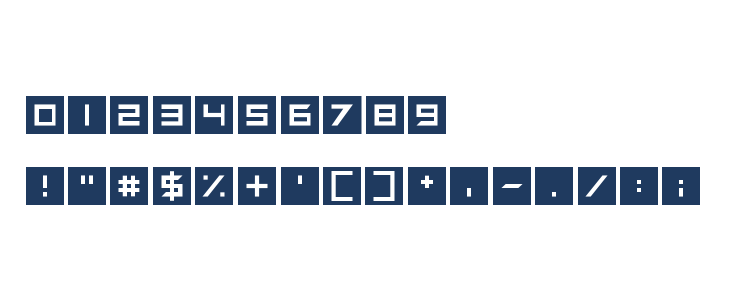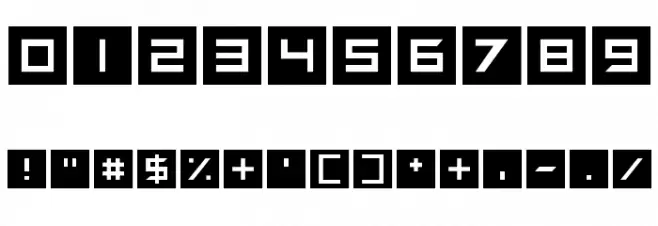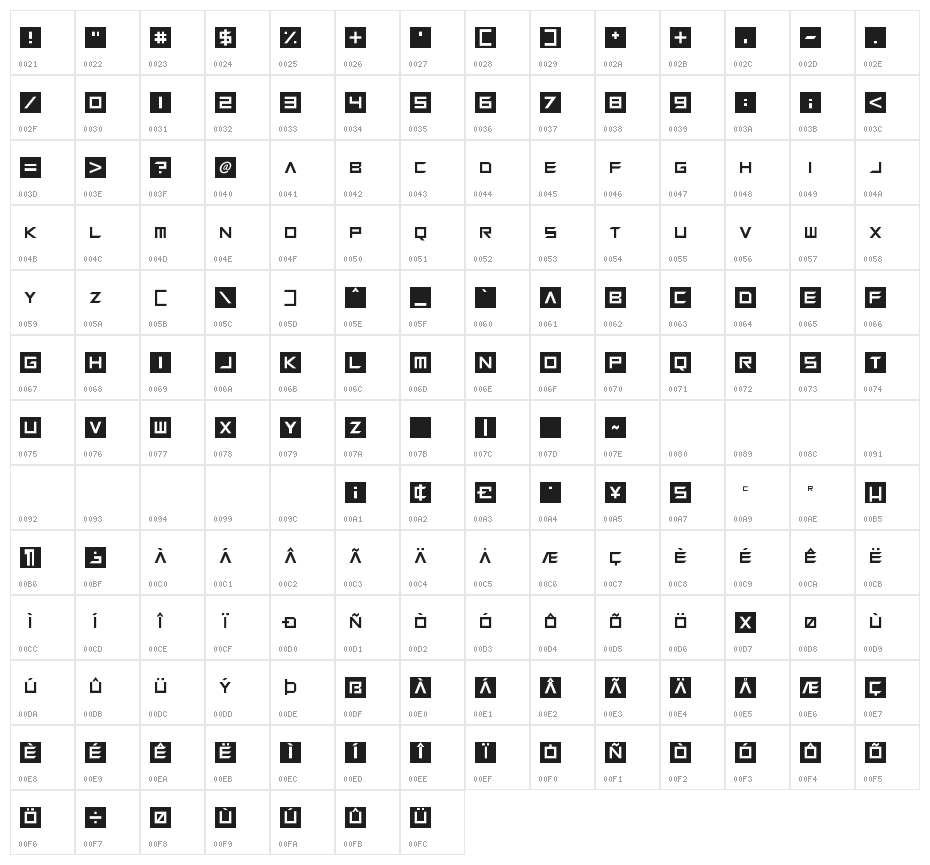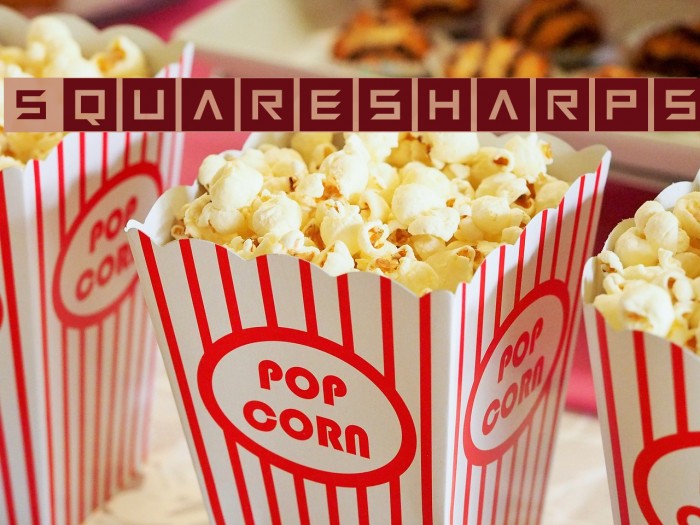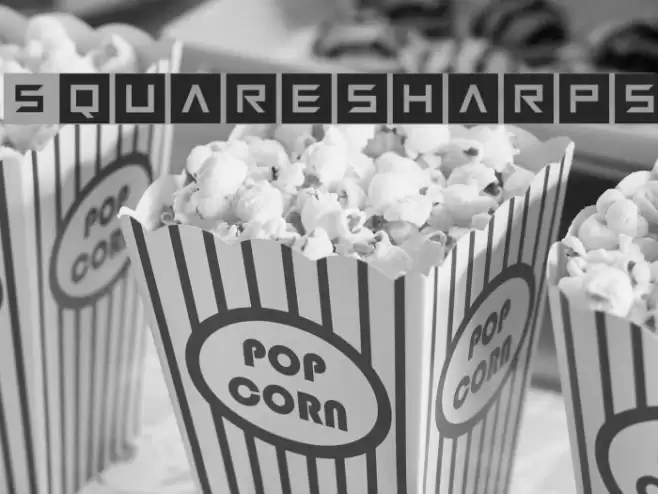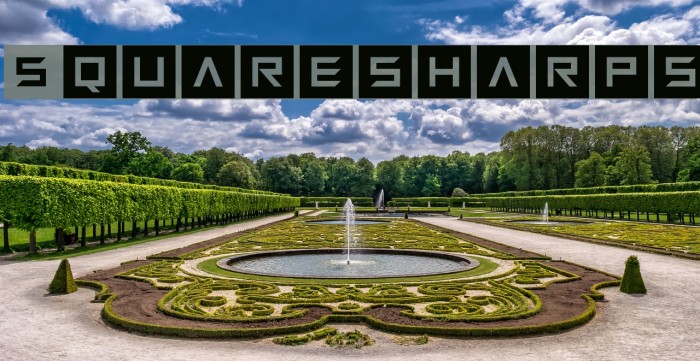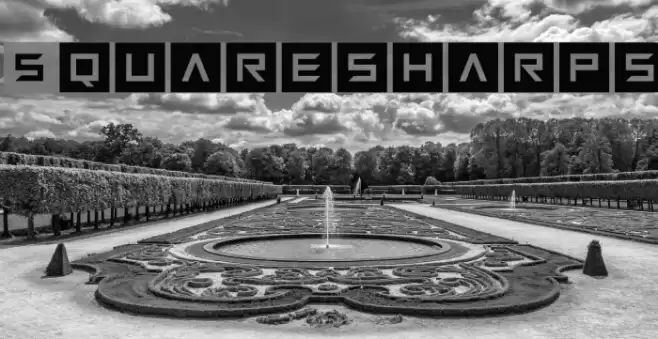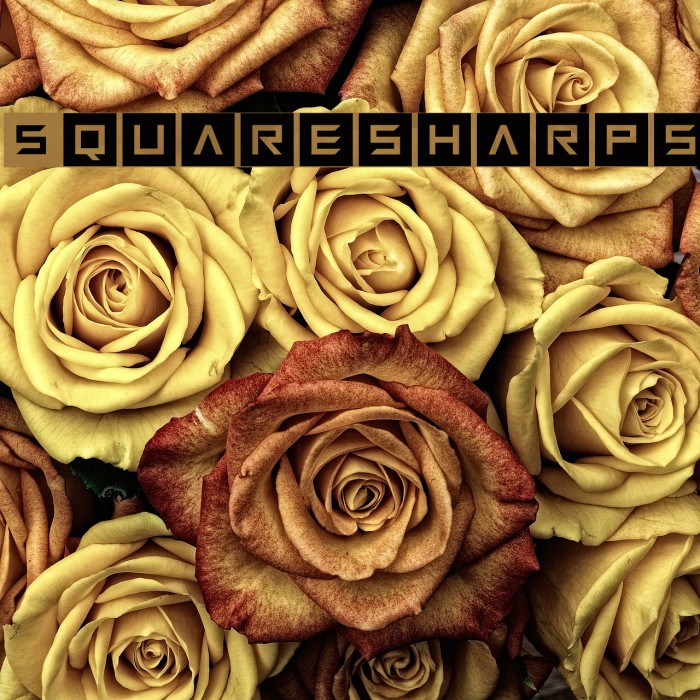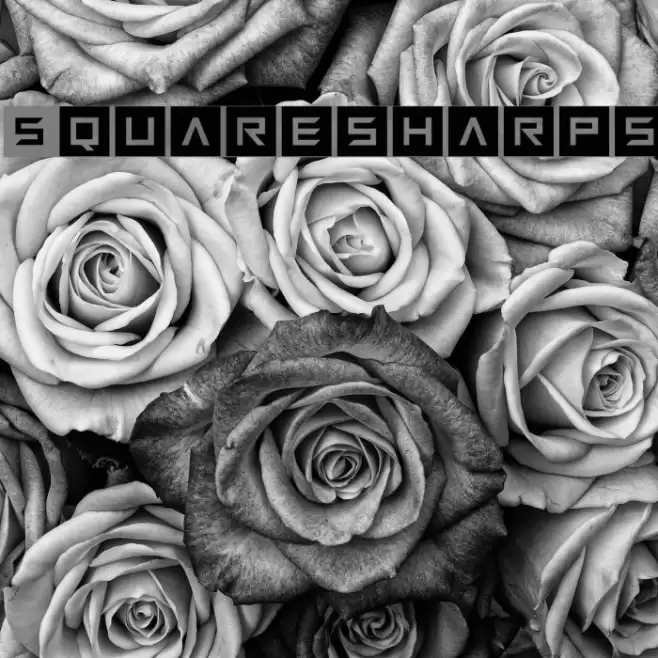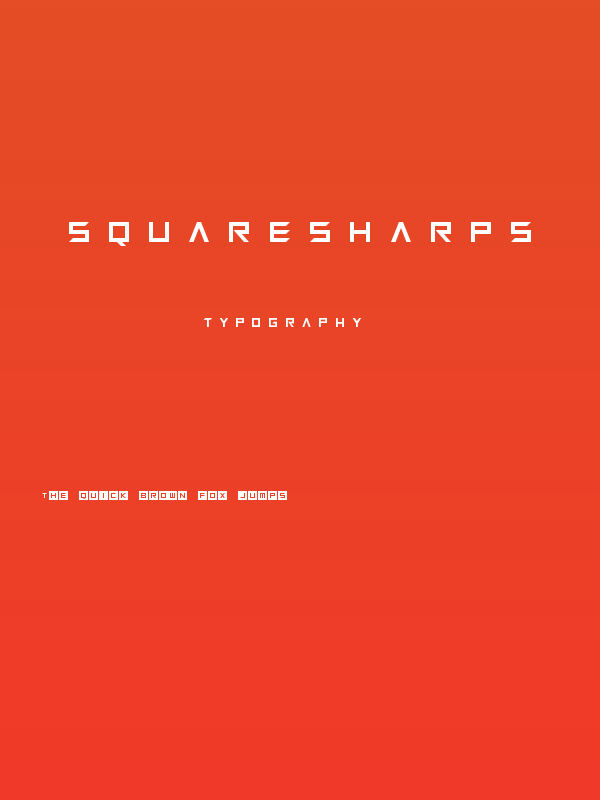
Squaresharps Font
Squaresharps Description
This font features a geometric and futuristic design with sharp angles and clean lines. The uppercase letters are bold and angular, creating a strong visual impact. Each character is enclosed within a square, enhancing its modern and structured appearance. The numbers and special characters follow the same design principles, maintaining consistency throughout. The font's distinct style makes it suitable for projects that require a contemporary and edgy look.
| Proposed Projects | Ideal for sci-fi themed designs, tech branding, video game interfaces, and modern posters. |